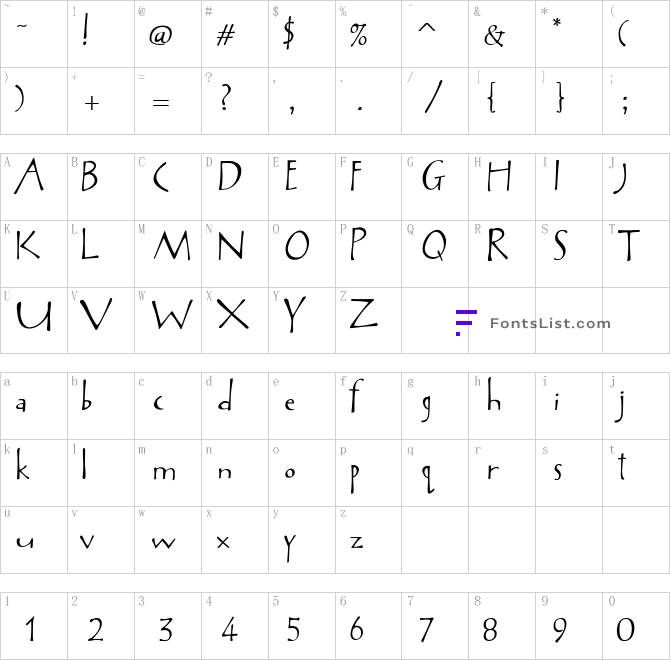
- Font Name:Avril
AvrilRegular.ttf is a very beautiful artistic font, AvrilRegular.ttf is widely used in the design and printing of various books and pictures,AvrilRegular.ttf has a strong visual impact,AvrilRegular.ttf is a commonly used font in newspapers, magazines and books, and is used in posters, e-commerce Poster design, store design, logo design, font design and other fields.AvrilRegular.